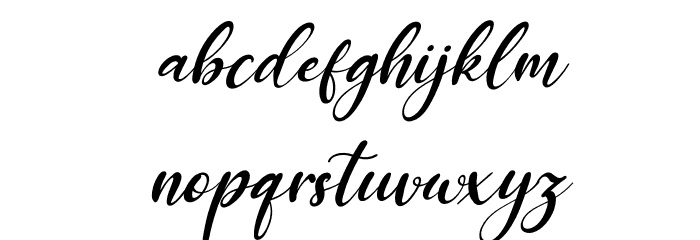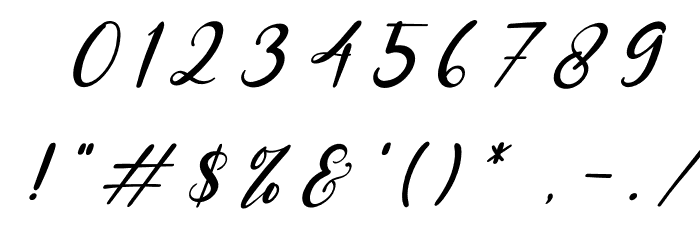
Miss Amalia Italic Font
This elegant script font features a flowing, cursive style with a distinct italic slant. The characters are interconnected, creating a seamless and sophisticated look. The uppercase letters are ornate with flourishes, while the lowercase letters maintain a smooth, continuous flow. The numerals are designed to match the script style, adding a touch of elegance to any numerical display. Special characters are thoughtfully integrated, maintaining the overall aesthetic. This font exudes a sense of grace and refinement, making it ideal for formal and decorative applications.
An elegant, flowing script font with an italic slant and ornate flourishes.
- Font: Miss Amalia Italic
- Proposed Projects: Ideal for wedding invitations, elegant branding, greeting cards, and decorative headings.
- Category: Script
- Overall Style: Elegant, Decorative
- Use Case: Headlines, Invitations, Branding